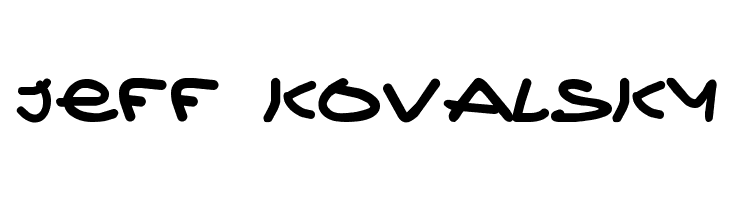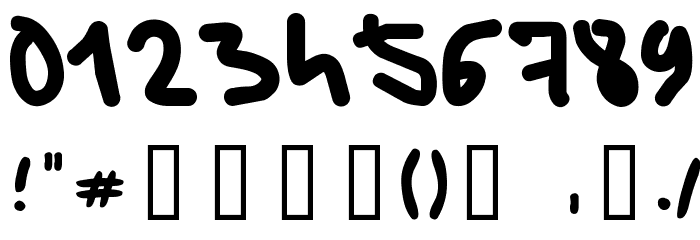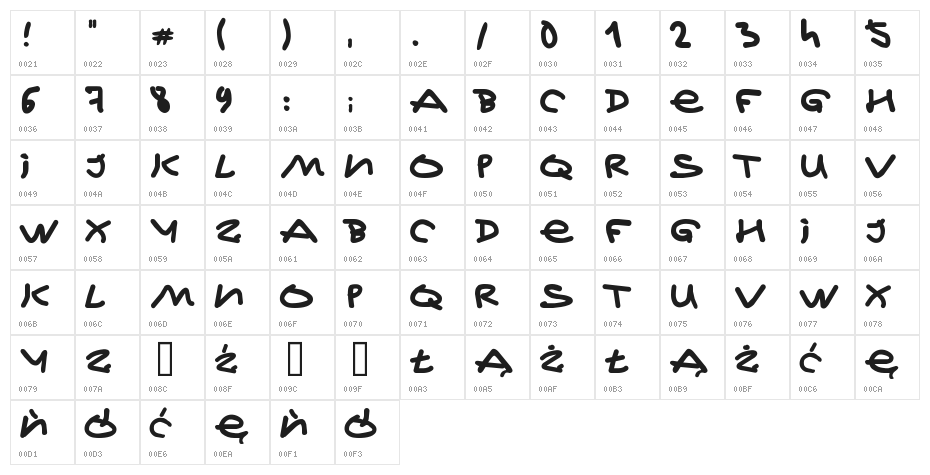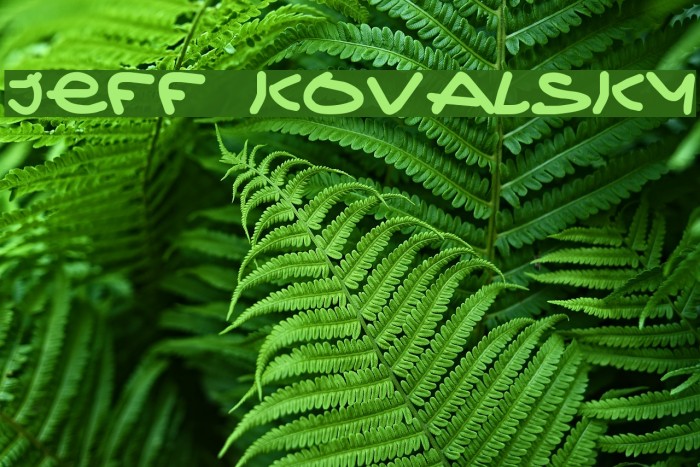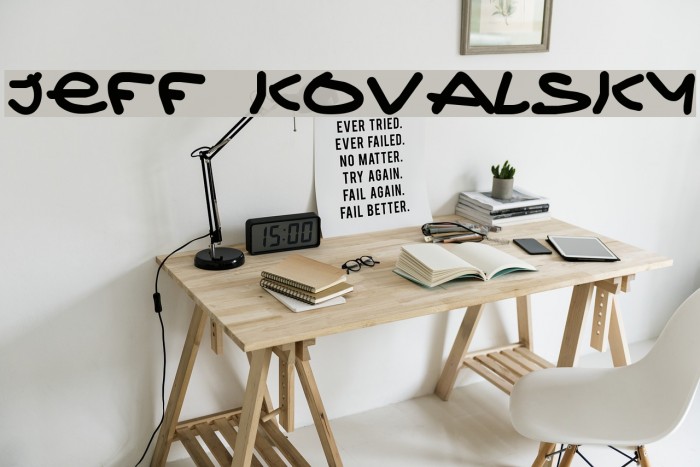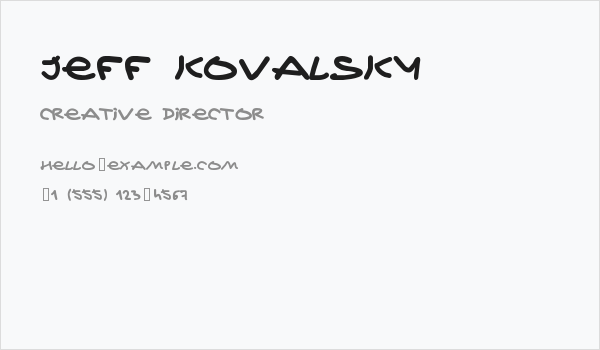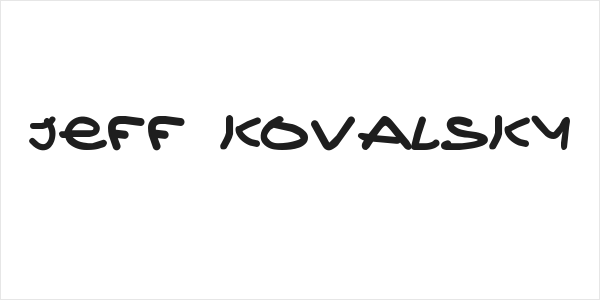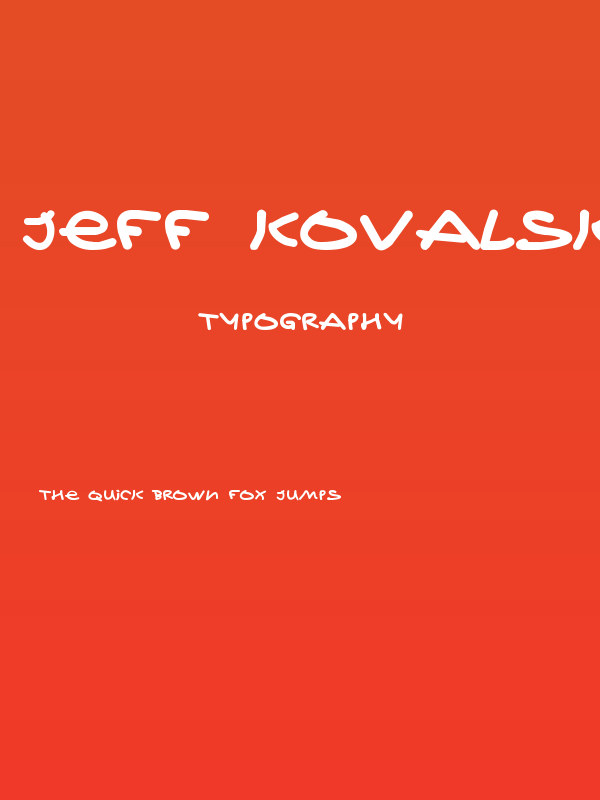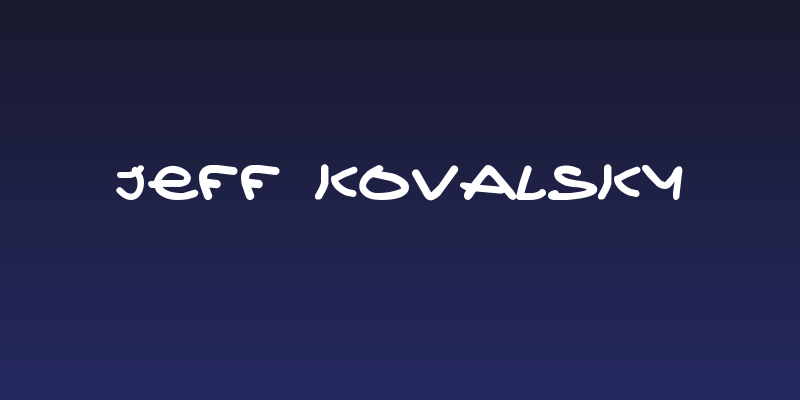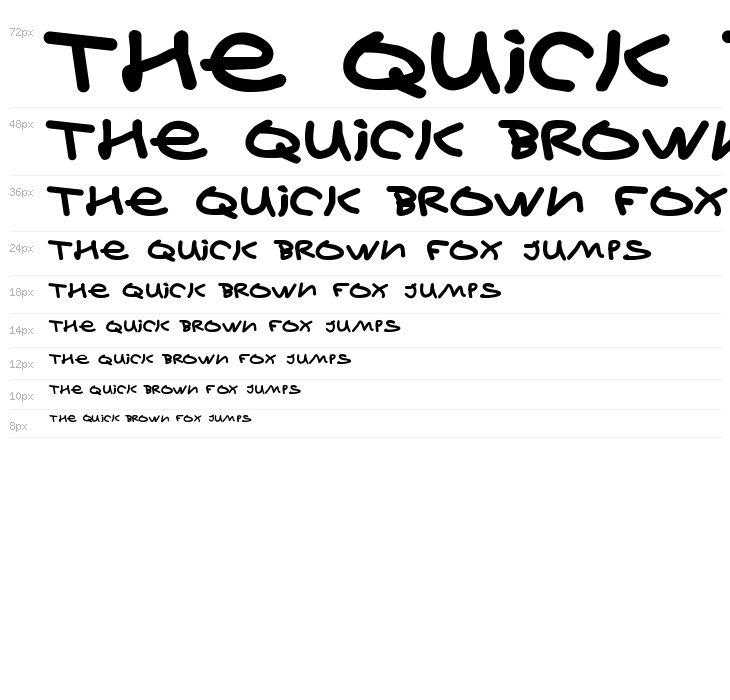
Jeff Kovalsky Font
Jeff Kovalsky Description
This font features a bold and playful handwritten style, characterized by its thick strokes and casual, informal appearance. The letters are slightly slanted, giving a dynamic and energetic feel. The uppercase and lowercase letters maintain a consistent style, with rounded edges and a flowing, cursive-like structure. The numbers and special characters follow the same playful aesthetic, making the font suitable for creative and informal designs. The overall look is friendly and approachable, ideal for projects that require a touch of personality and flair.
| Proposed Projects | Ideal for children's books, playful branding, greeting cards, and informal invitations. |